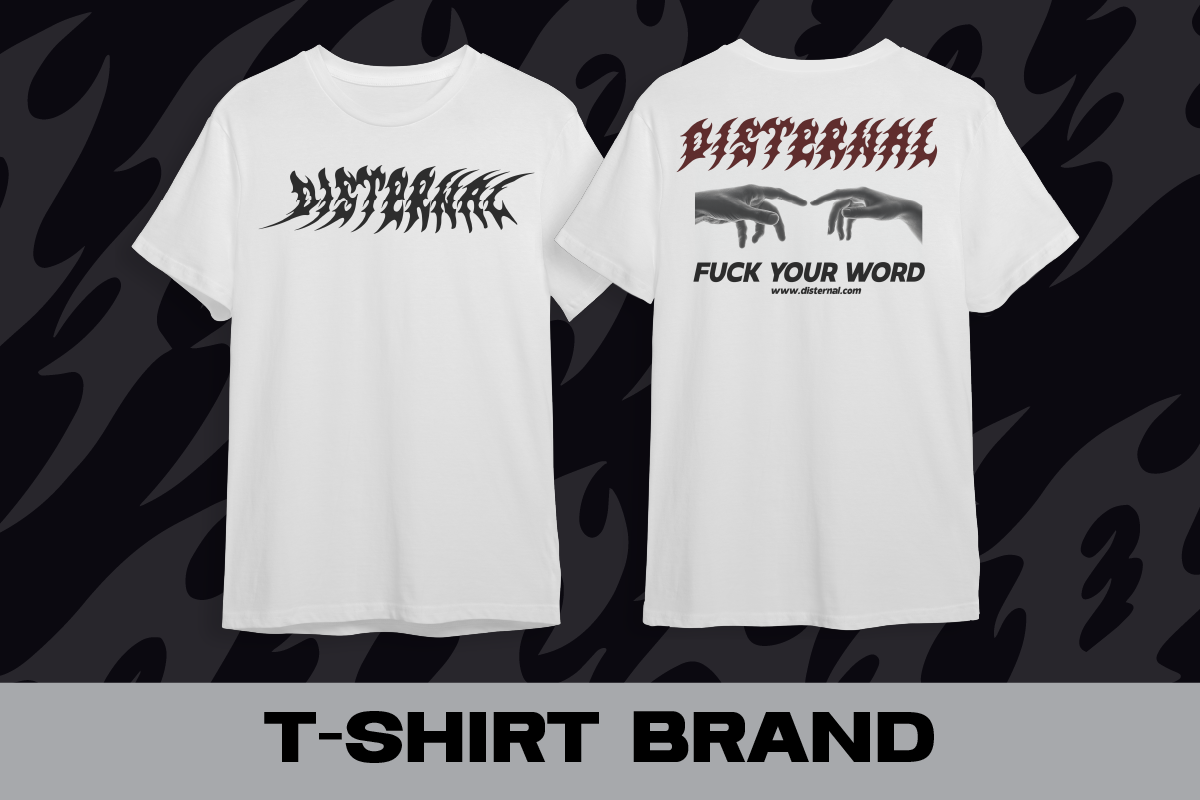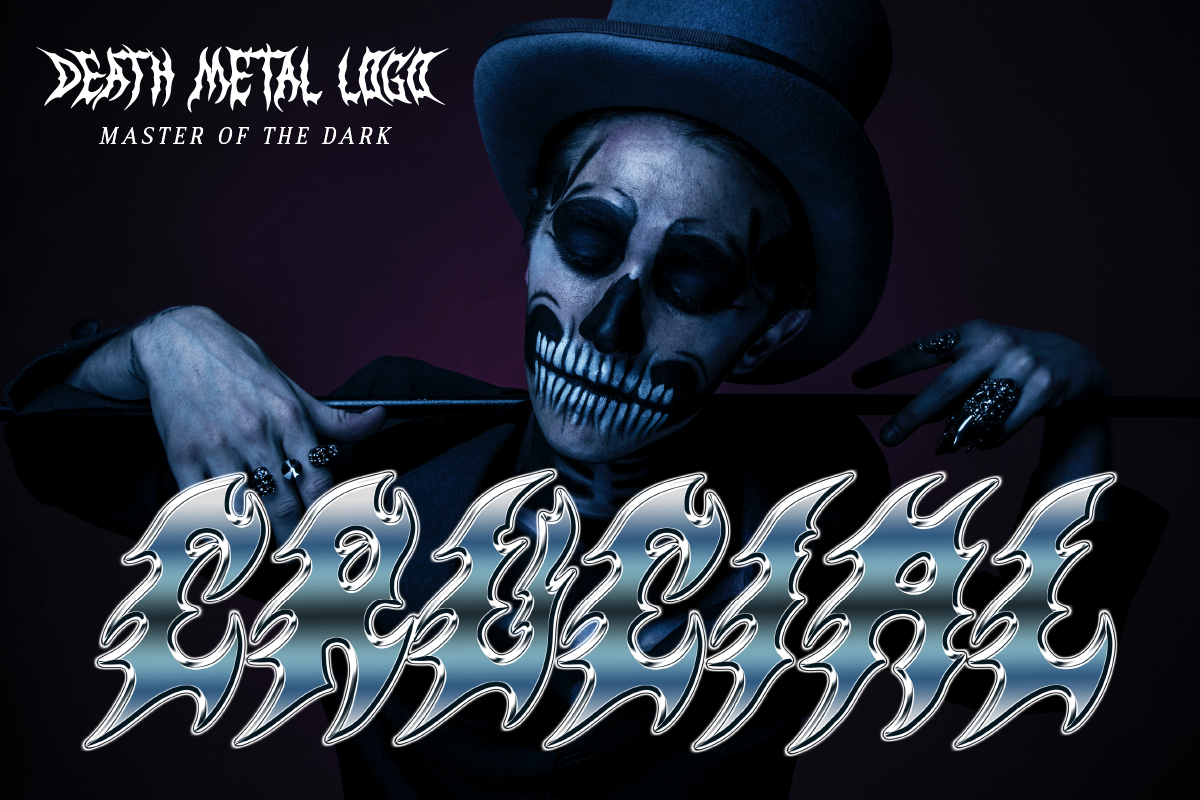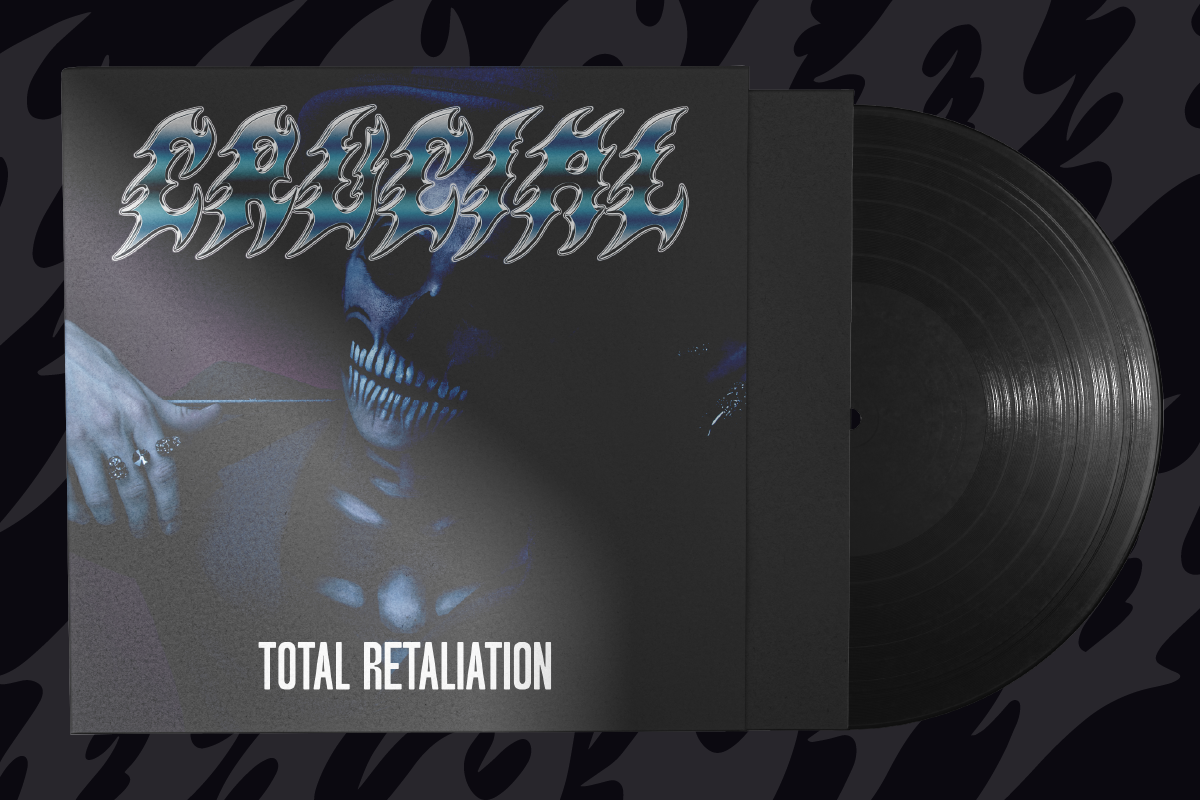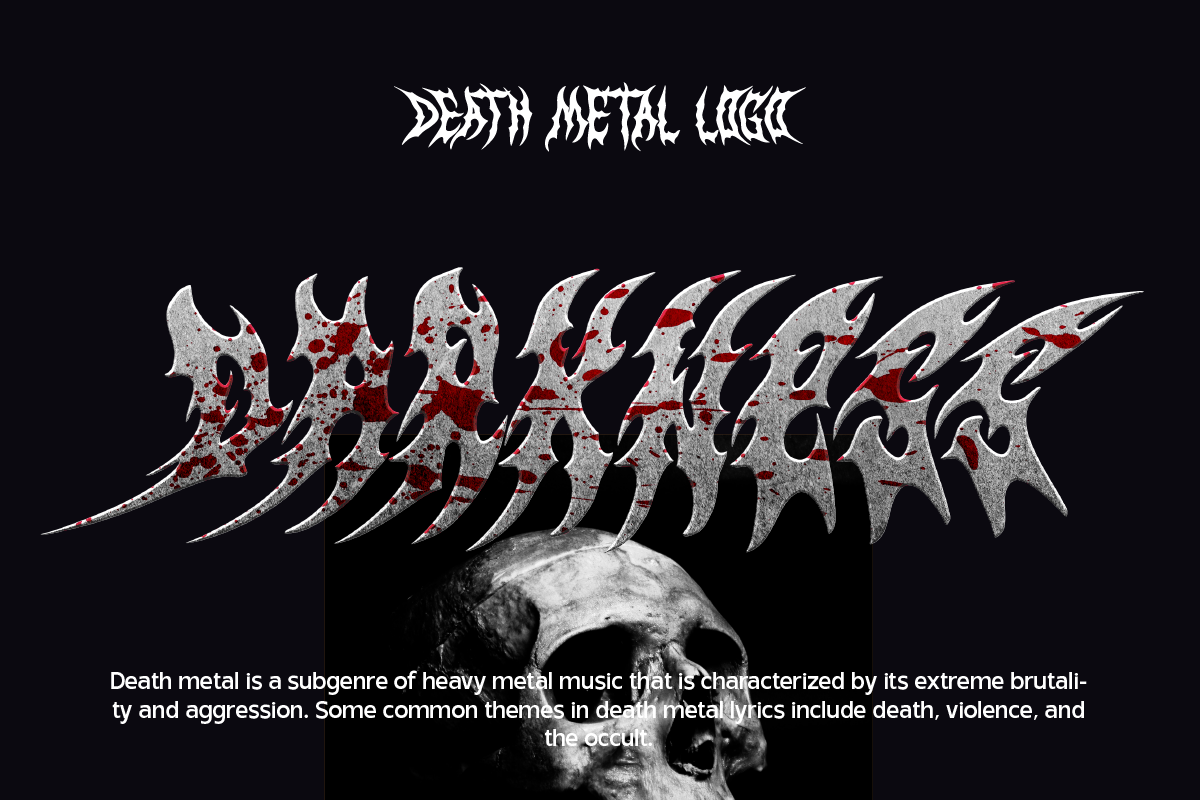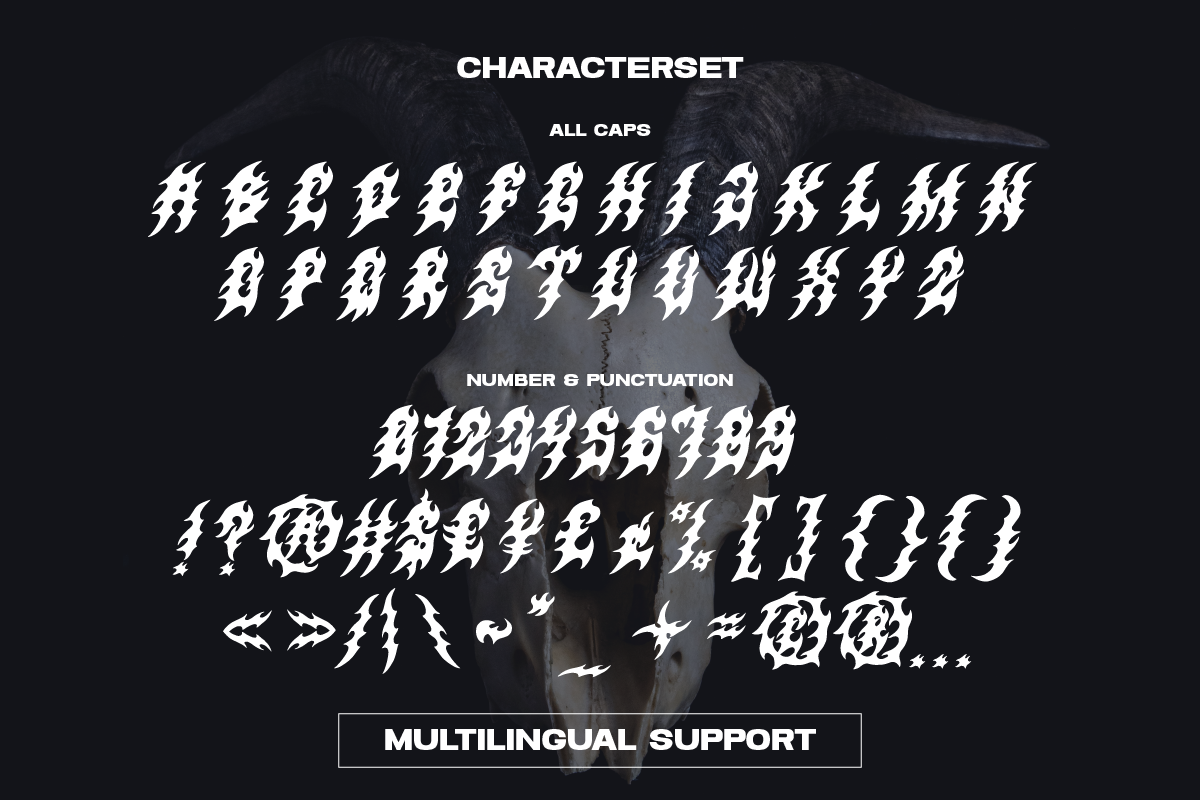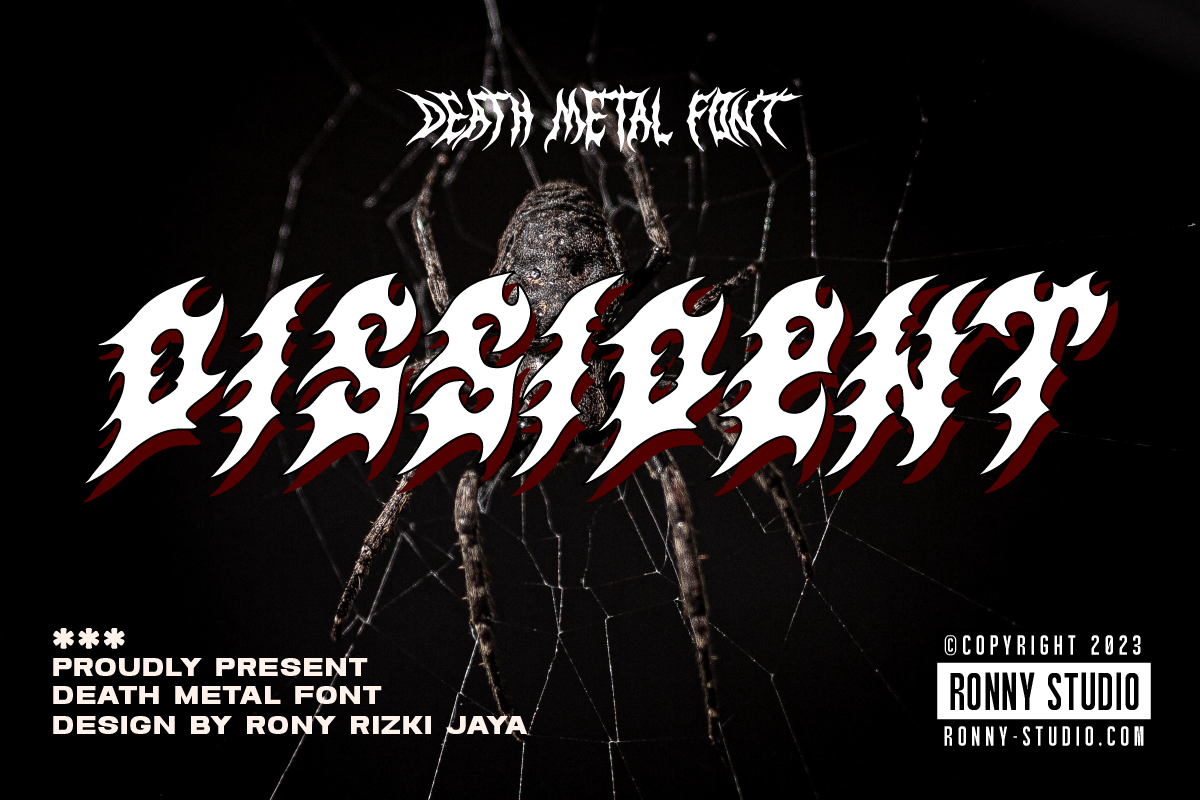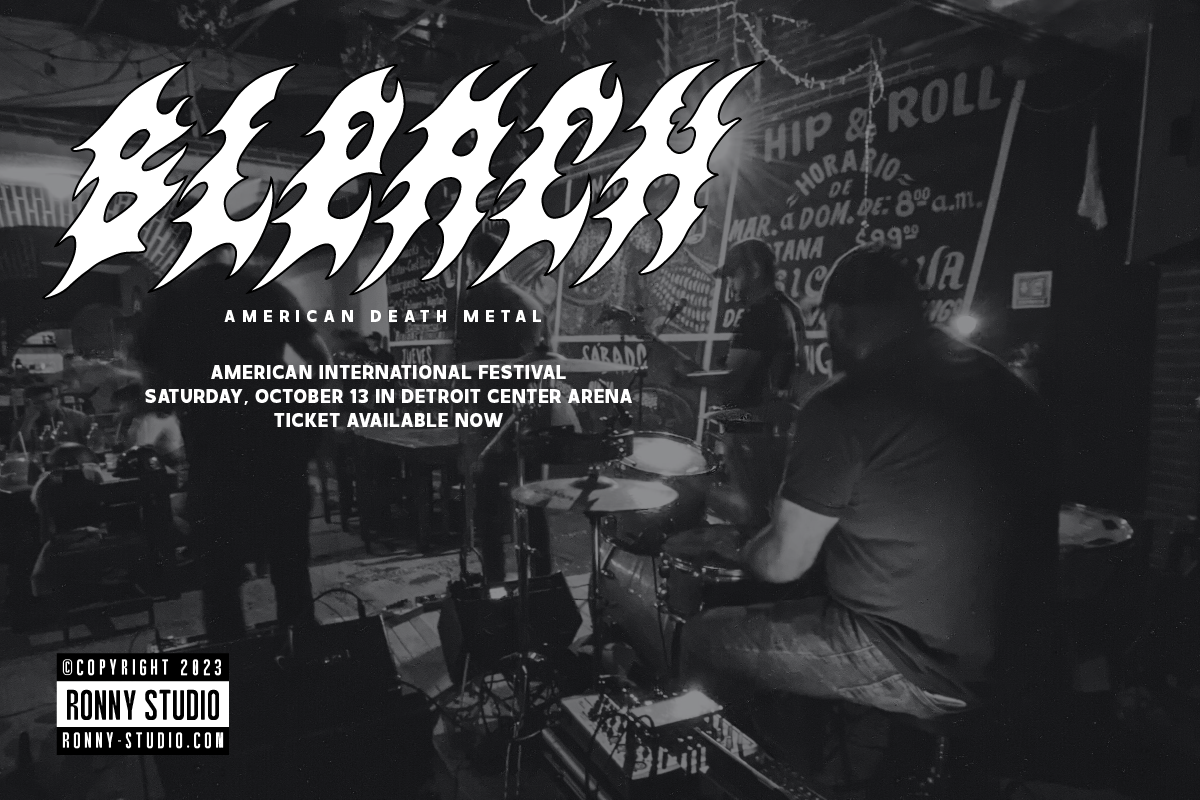
Dissident Death Metal Font
Dissident Font is a cool alternative for you to easily create your Underground band logo or whatever. Using alternative fonts and ornaments will liven up the font and will look cooler and fiercer. It comes with a basic character set and a small group of symbols and signs frequently used in the extreme music sector - Death- and Blackmetal classics such as pentagram drops, roots, wings and more.
- All Caps
- numbers & punctuation